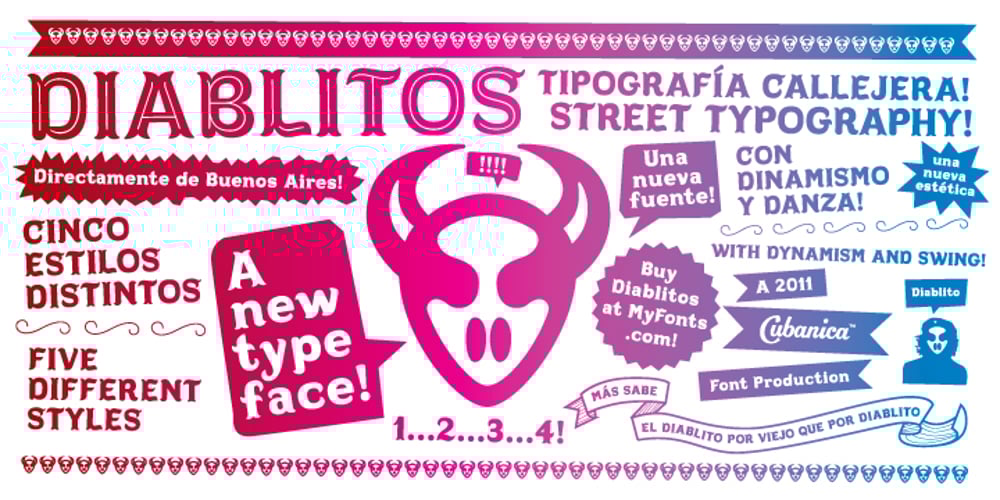
Diablitos Font Family was designed by Pablo A. Medina and published by Design is Culture. Diablitos contains 5 styles and family package options. In August of 2009, I was commissioned by Zoo York, a New York City based skateboard company, to visit Buenos Aires to study and document street typography. As soon as my taxi driver took the bustling street Entre Ríos, it was clear that the city and I were going to be good friends. Many of the independently owned businesses on Entre Ríos are adorned with handmade signage. These signs are painted in a style called Fileteado which is a century-old Argentinian type of lettering and floral ornamentation. Nowadays, Fileteado is still a prominent part of the city’s landscape, coloring the façades of restaurants, bars and coffee shops. Calaveras and Diablitos are two new typefaces that were inspired by Fileteado. Stylistically, the fonts are a return to a rhythmic and playful sensibility reminiscent of Vitrina and Cuba, two fonts that I designed in 1996. Along with dynamism and dance, these new fonts incorporate a rigor and functionality essential to labelling any font a ‘workhorse.’ The names Calaveras and Diablitos, came from the name of a song by the infamous Buenos Aires rock band, Los Fabulosos Cadillacs. —Pablo A. Medina